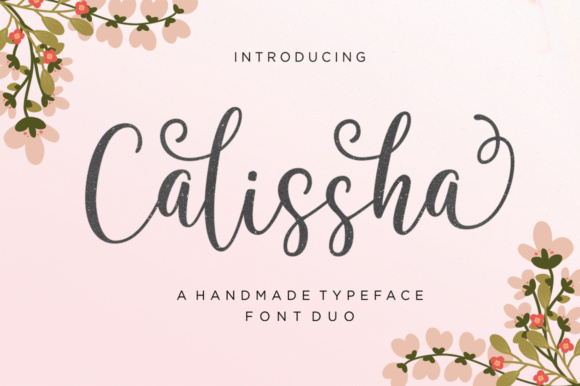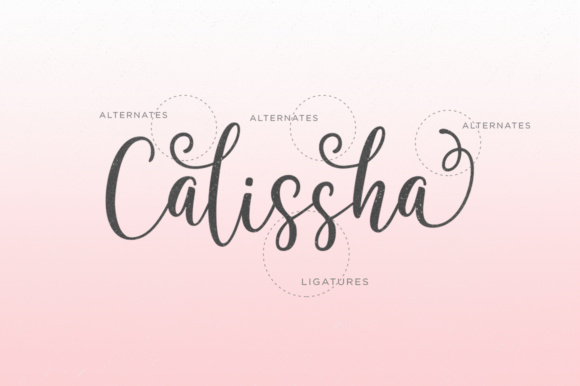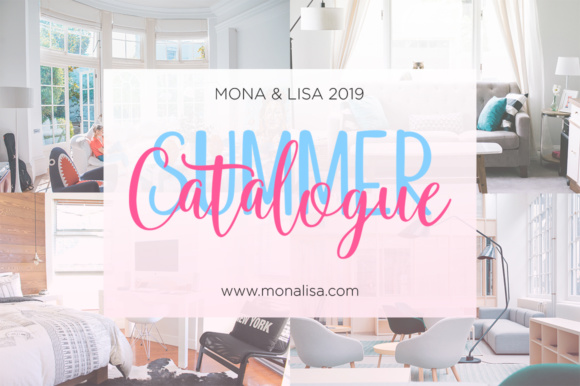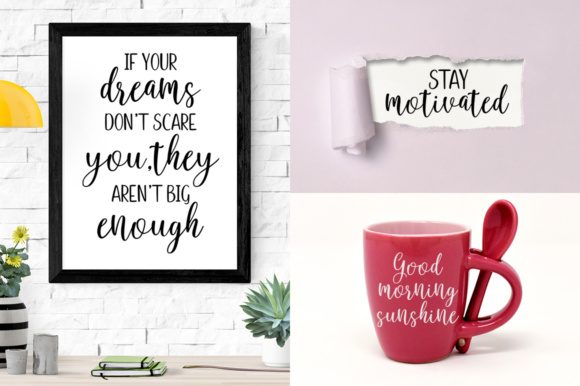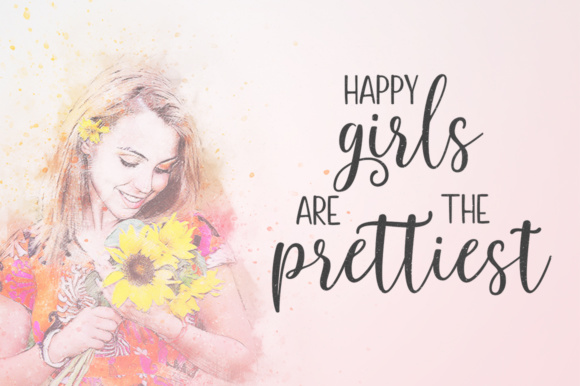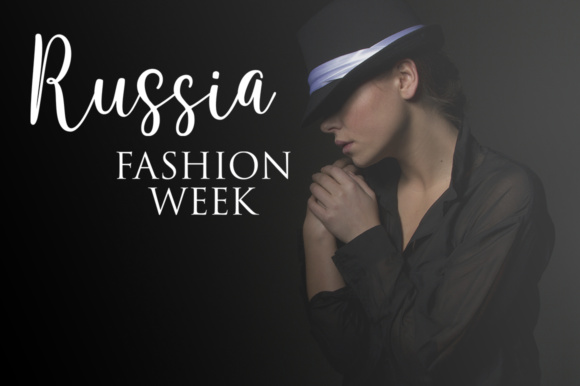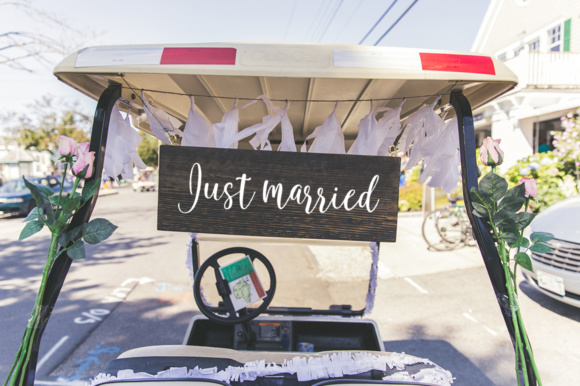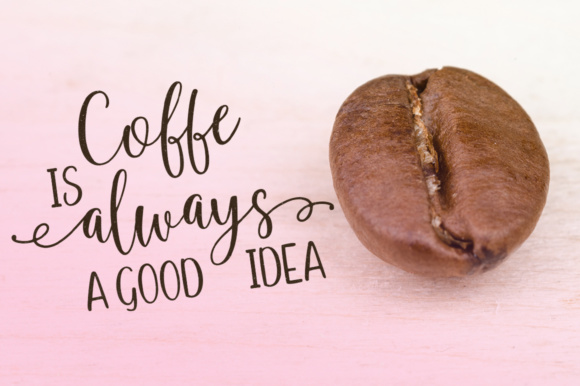
Calissha Duo Font
About Calissha Duo Font
Calissha Duo is a handmade font created with a brush and ink. Calissha has a bold an irregular baseline and is perfect for watercolor designs or blog headers, branding, t-shirts, weddings and much more!